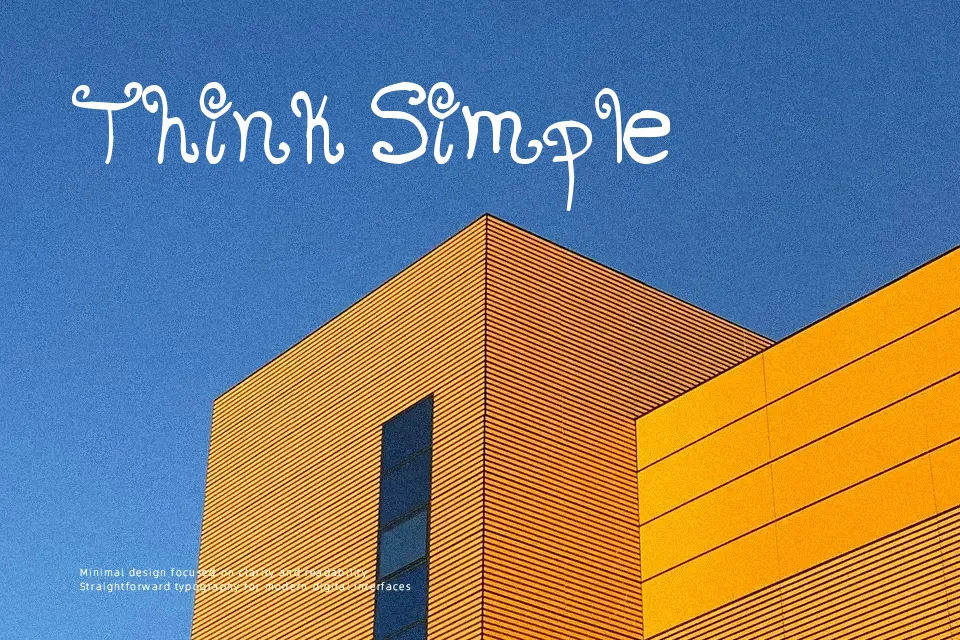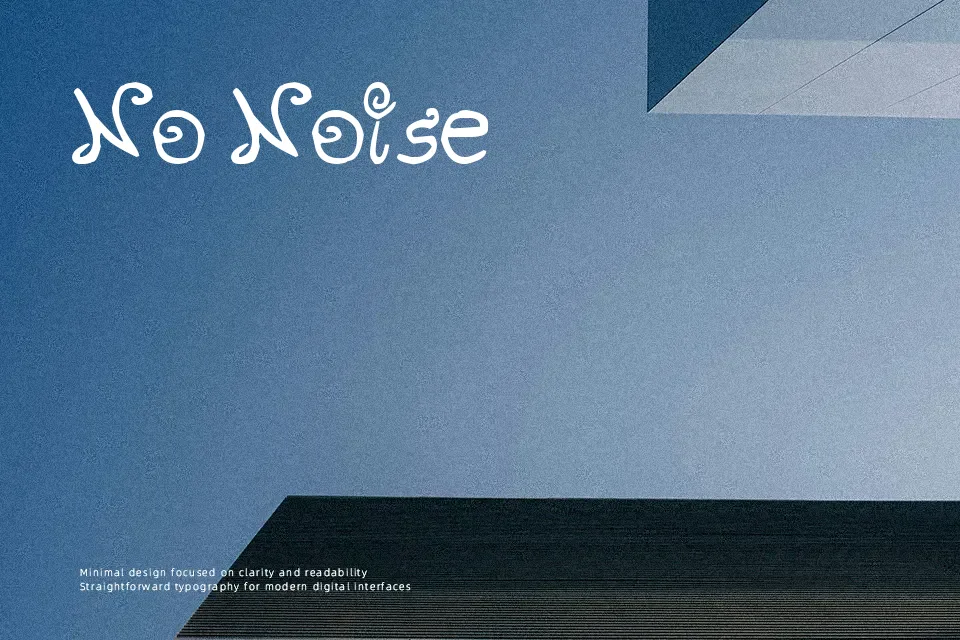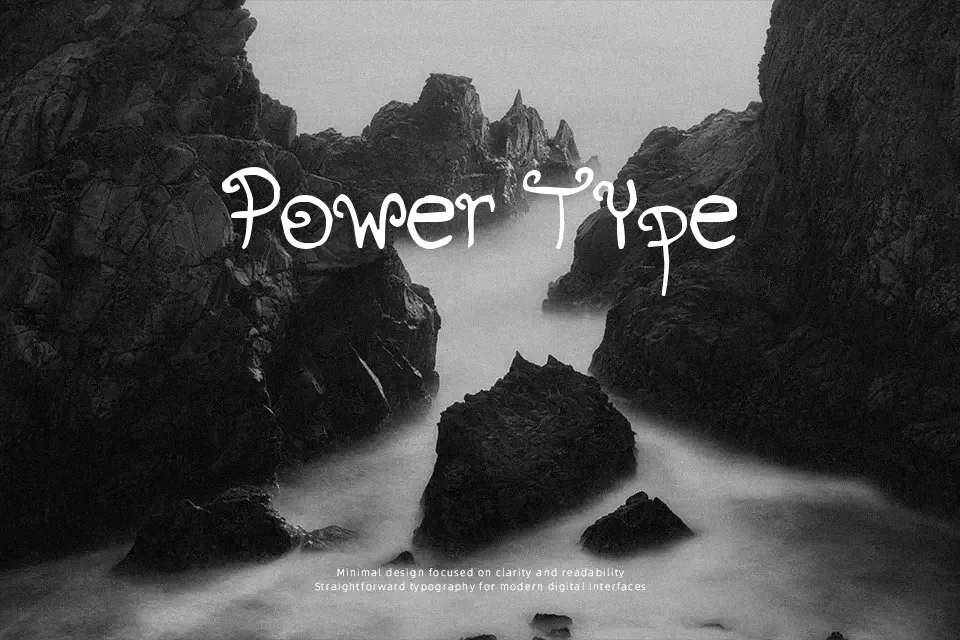
Romantic Font 2 Font
Characterized by whimsical strokes and expressive curves, the Romantic Font 2 Font presents a distinctively curly visual structure that commands attention. The letterforms feature swirling terminals and dramatic proportions that give the design a highly decorative, lighthearted appearance. While the generous spacing helps balance the complex shapes, the intricate curls reduce overall readability when the typeface is applied to medium or small text. Decorative details become less effective at smaller sizes, meaning this playful display design performs best when utilized for prominent headlines, greeting cards, and elegant packaging labels. The elaborate forms make the design less suitable for continuous reading or dense editorial paragraphs.
Best For: romantic wedding invitations, feminine product packaging, boutique store signage
Not Ideal For: long paragraph text, dense editorial layouts, small interface labels
Perfect for headline, invitation, and packaging, with a elegant and decorative style.